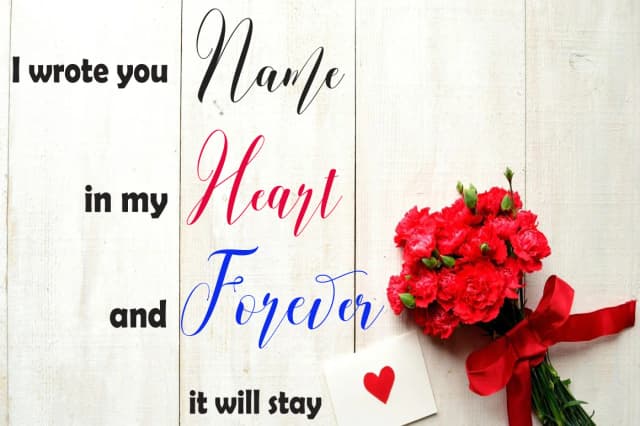
About Angella Font
Angella Font by Cooldesignlab is a flowing script typeface that infuses designs with authentic handwritten warmth and character. The font's natural letterforms strike an ideal balance between refined elegance and approachable personality, making it suitable for any project where aesthetic warmth truly matters to your audience.
This versatile script shines across wedding invitation suites, stationery design for independent businesses, Etsy shop branding, and luxury product packaging design. Whether you're creating embossed thank-you cards, custom monogram logos, hand-lettered social media graphics, boutique beauty product labels, or seasonal greeting card collections, Angella delivers the polished-yet-personal aesthetic that contemporary creative work demands. The typeface also excels for DIY craft signage, handmade gift tags, editorial headers, and custom label design where warm, organic letterforms enhance the overall visual narrative and build emotional connection with viewers. Its graceful curves and refined stroke work create designs that feel both sophisticated and genuinely personal.
Angella Font ships with 3 OpenType features you can switch on in apps that support them (Illustrator, InDesign, Affinity, Figma, CSS font-feature-settings).
Angella Font is a script font that shines as a display or heading face. Pair it with a clean sans-serif or serif font for body text β the contrast creates a clear hierarchy while the two styles stay balanced and easy to read.